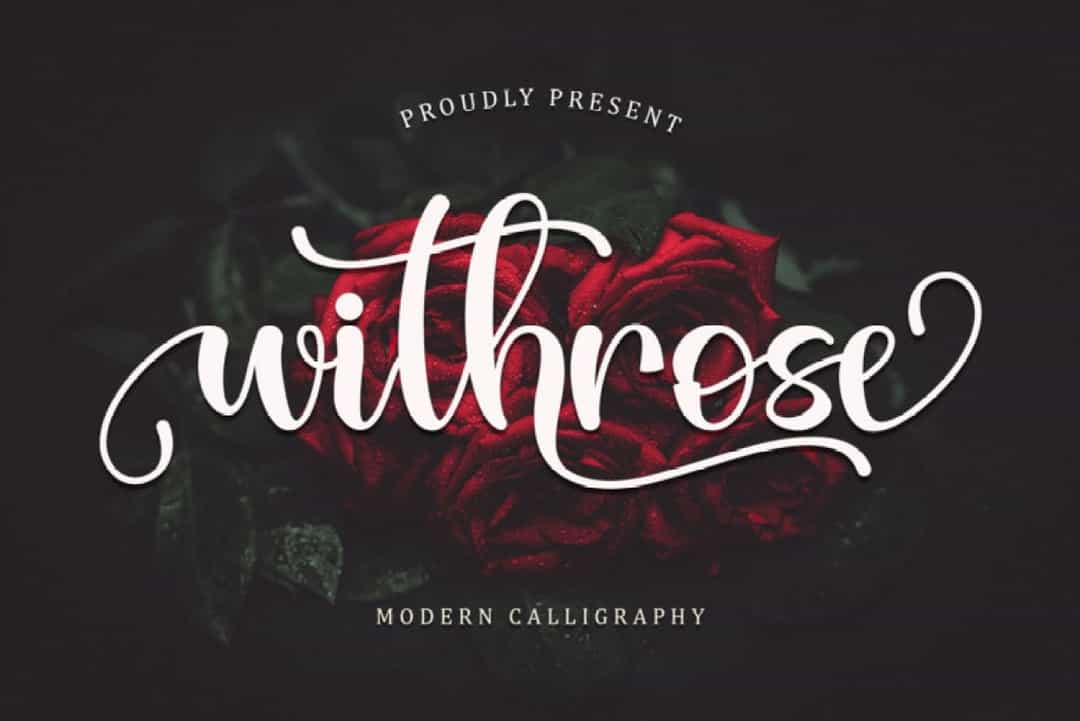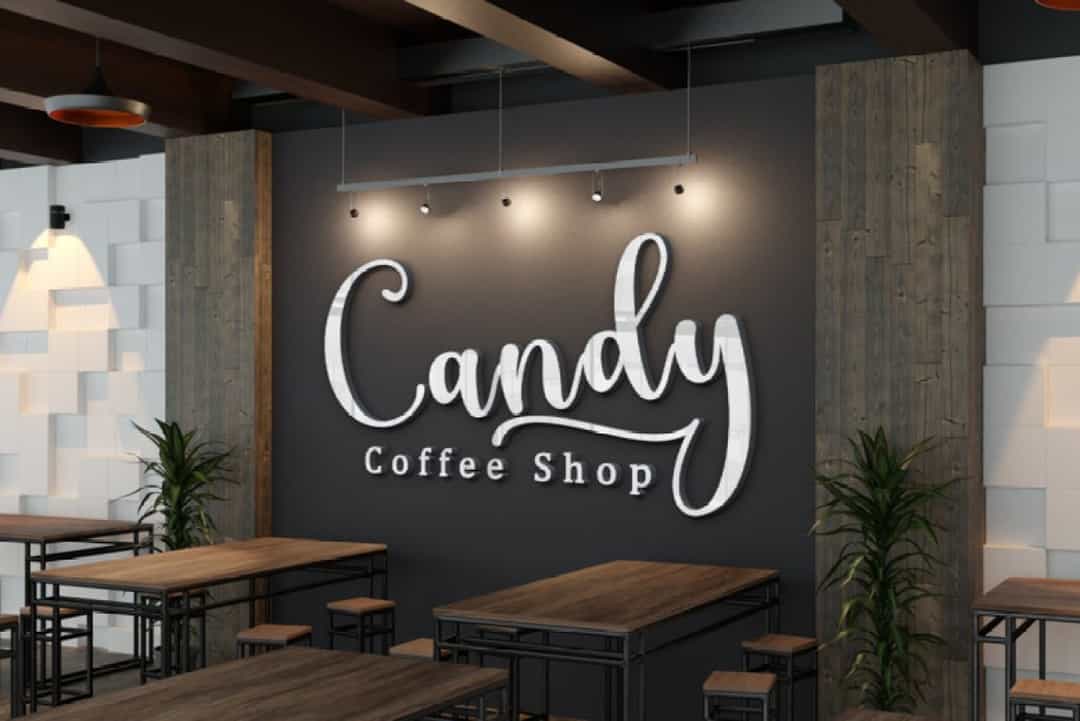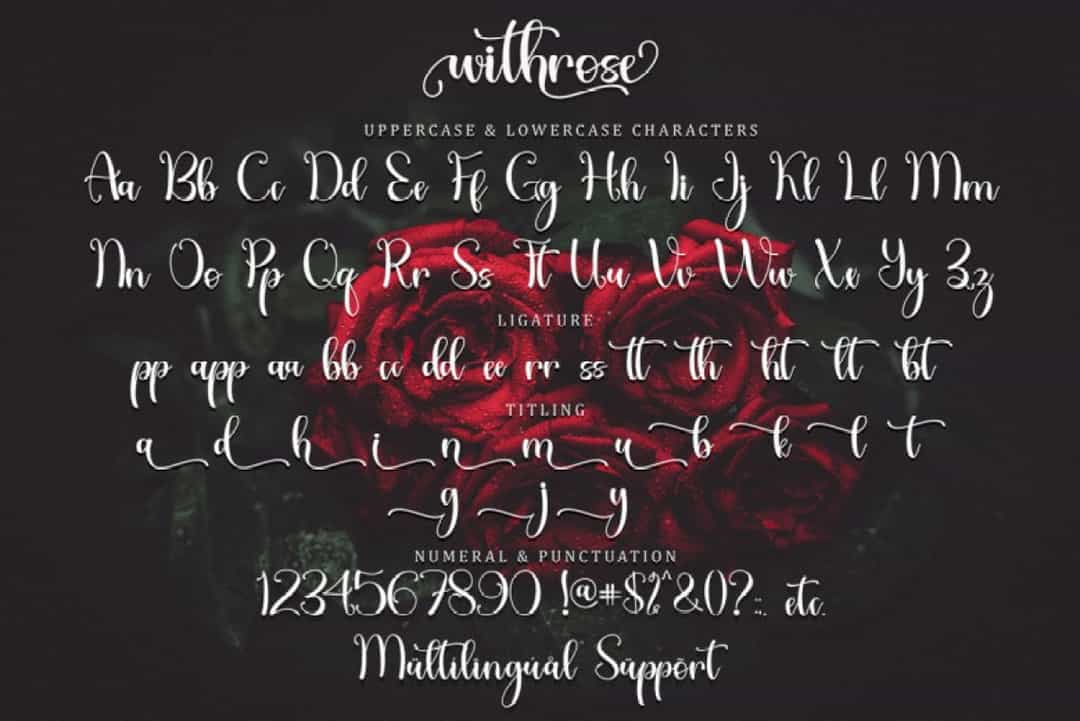
Withrose is a new calligraphy font that is released for the celebration of Valentine’s Day only. It can be used to insert nice and stylish writing and logo and branding purposes. Ideal for personalized images, water marks, photo overlays, poster, greeting cards, invitation cards, business cards, wedding photography, fashion clothing, letters, stationery and many more.